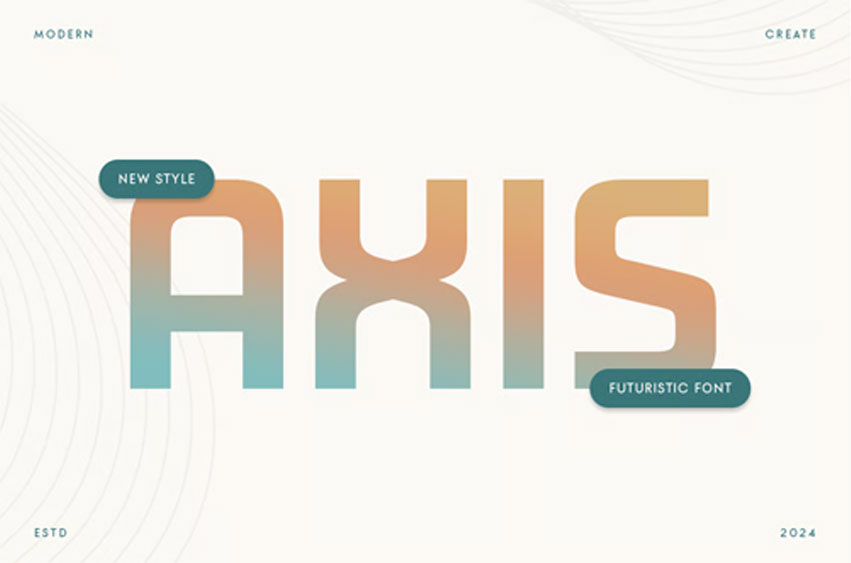
Axis Modern Font
Axis Modern Font Modern Unique Futuristic Techno Font is a Modern Futuristic font are prepared special for Technology, Modern, and Futuristic design needs, that created special for Logo, Title and more stand out typography for futuristic and sci-fi.
It’s so perfect to add your style and headline overview for technology, film, space, and futuristic theme. And specially for this font, we’ve ready for modern feels so enjoy to create any project that will show your main idea out.
• Perfect for Futuristic Techno Design